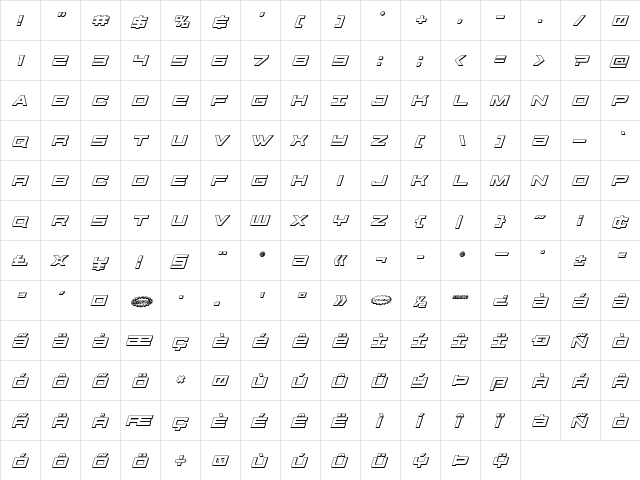
Future Forces 3D Italic Italic
Future Forces 3D Italic channels digital-age aesthetics through its sharp, structured letterforms — ideal for brands that want to signal innovation. The slanted form adds forward momentum and visual energy.
Pro Tip: Try Future Forces 3D Italic with generous letter-spacing in UI labels and navigation — the geometric forms benefit from room to breathe.